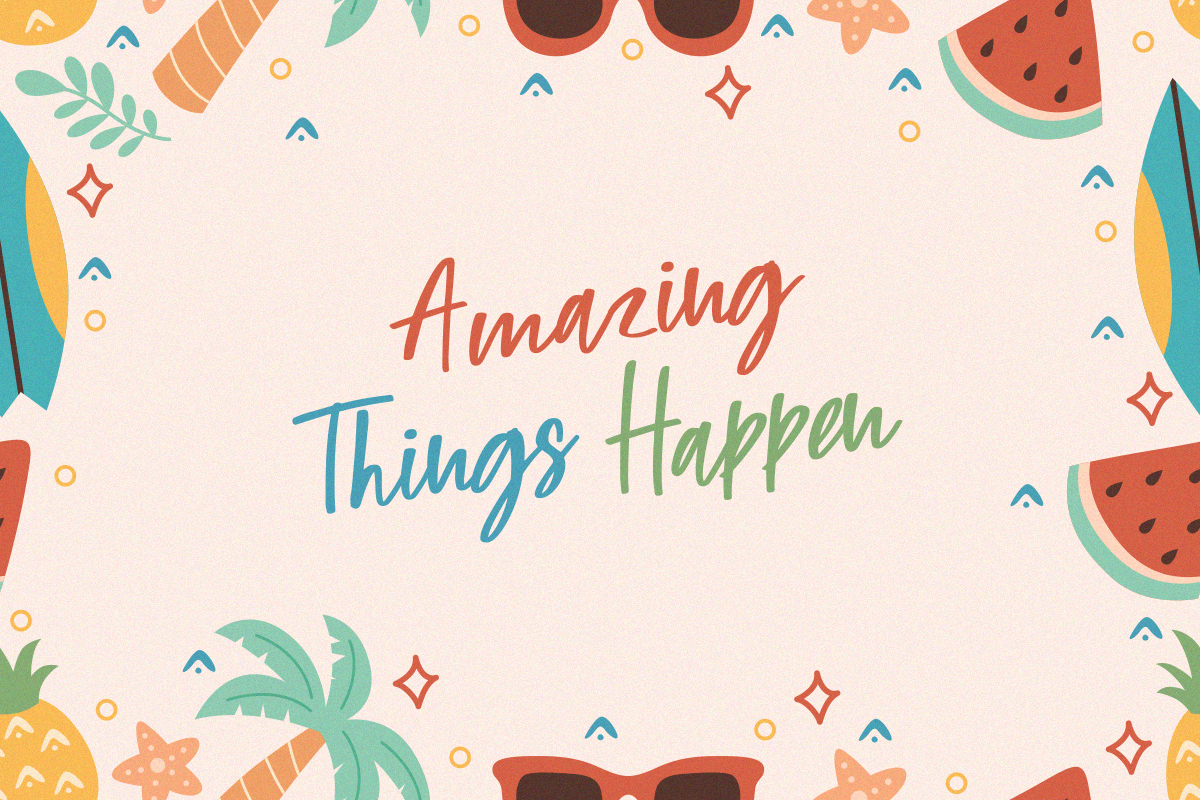
Baby Lullaby Font
Baby Lullaby Script Font
This Font Is Playful Script Font Inspired By Handwritting Characters. This font is perfect for logos, invitations, stationery, wedding designs, social media posts, advertisements, product packaging, product designs, label, photography, watermark, special events, or anything.